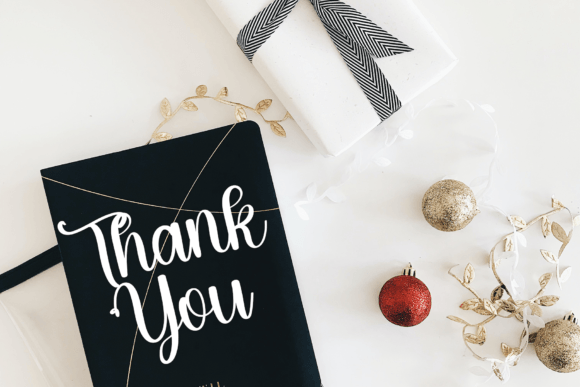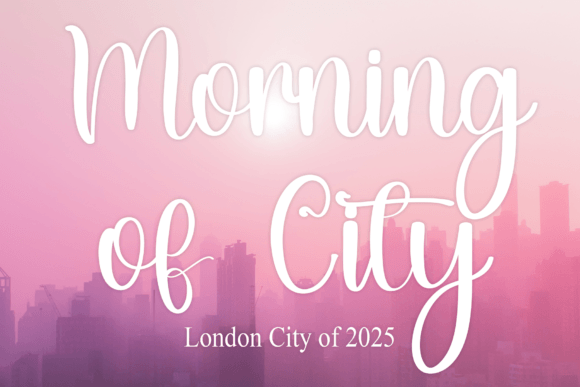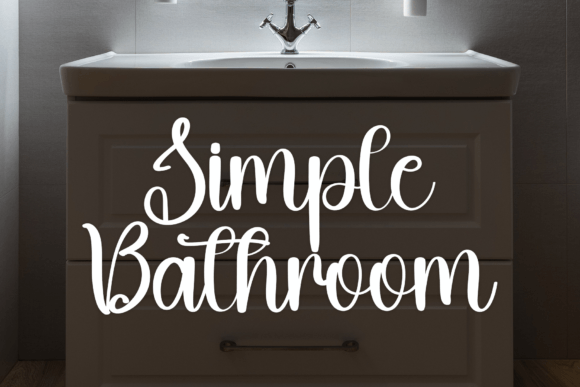
Introduction to Overtake Font
Have you ever found yourself staring at a blank canvas, struggling to bring your creative vision to life? That’s exactly where I was when I stumbled upon the Overtake Font. It was as if the perfect brush stroke had been waiting for me all along, adding that extra oomph to my design. This stylish handwritten font is a game-changer for designers looking to elevate their creative projects.
The Overtake Font is a masterpiece that exudes a contemporary atmosphere and impeccable form, drawing inspiration from the timeless classic calligraphy. With its balanced and varied design, this font is a valuable resource for any designer looking to add a touch of sophistication to their work.
Whether you’re working on a project that requires a high-quality, free download font or simply need a design resource to add some flair to your next creative project, the Overtake Font is sure to impress. Plus, with its transparent background, you can easily place your text on any background, giving you complete creative control.
Key Features of Overtake Font
- High-quality design resource with a transparent background, ideal for creative projects that require a modern and sleek look.
- Comes in a single weight, perfect for adding a touch of sophistication to your designs without overwhelming the composition.
- Resolution-independent, ensuring crisp and clear text at any size, making it suitable for both print and digital applications.
- Perfect for designers and artists looking for a unique and eye-catching font to elevate their creative project, whether it’s a logo, poster, or brochure.
- Can be easily customized to fit your design needs, allowing you to experiment with different colors, sizes, and styles to create a truly one-of-a-kind look.
Honest Review: Overtake Font
I recently stumbled upon the Overtake Font, and I must say, it’s been a game-changer for my design projects. As a designer, I’m always on the lookout for high-quality design resources that can elevate my creative work.
One of the standout features of the Overtake Font is its high quality. The font is crisp, clear, and has a unique aesthetic that sets it apart from other fonts. I’ve used it for a variety of projects, from brochures to business cards, and it’s always impressed.
Here are some of the things that work well:
- ✨ High-quality design: The font is well-crafted and looks great on both light and dark backgrounds.
- ✨ Versatile: The font is suitable for a wide range of creative projects, from print to digital media.
- ⚠️ Limited transparency options: The font doesn’t have a transparent background option, which can make it difficult to use on certain backgrounds.
- ⚠️ Not ideal for fine typography: The font’s bold aesthetic can make it difficult to read at small sizes.
Overall, I’m impressed with the Overtake Font. It’s a solid addition to any designer’s toolkit, and I’ll definitely be using it for future projects.
Using Overtake Font in PowerPoint/Word
In Microsoft PowerPoint and Word, you can use the Overtake Font by selecting it from the font list and applying it to your text. This font is perfect for presentations, reports, and other business documents that require a professional and creative touch.
Tips for Getting the Most Out of Overtake Font
To get the most out of the Overtake Font, experiment with different font sizes, colors, and styles to create unique and eye-catching designs. You can also use the font in combination with other design elements, such as images and graphics, to create a cohesive and visually appealing design.
The Overtake Font is ideal for a wide range of creative projects, including social media graphics, posters, flyers, presentations, reports, and business documents. Its high-quality design and transparent background feature make it a versatile and useful design resource for both personal and professional projects.